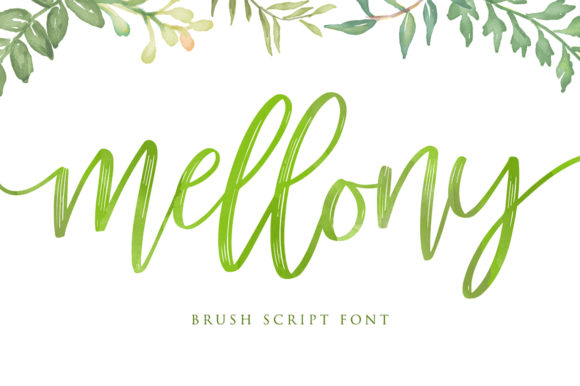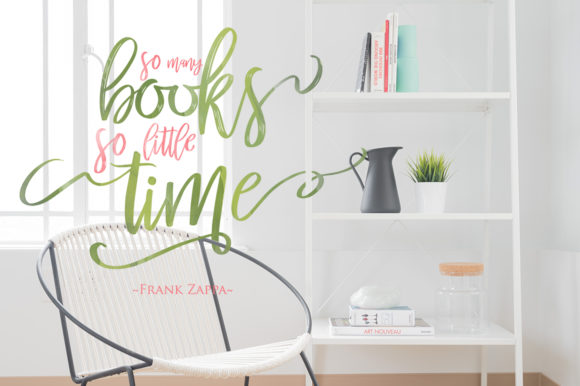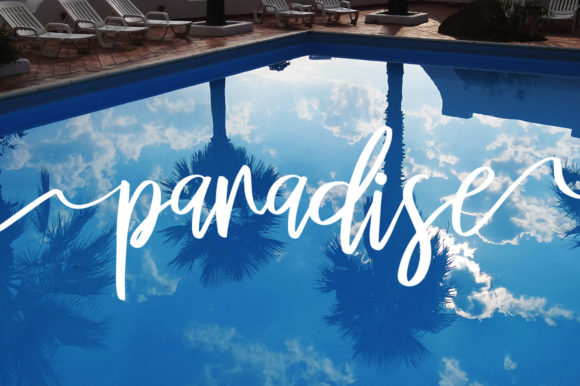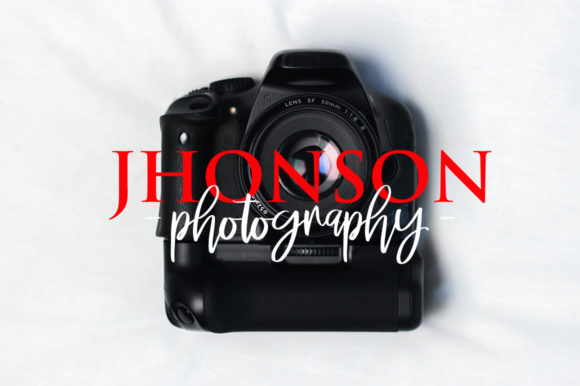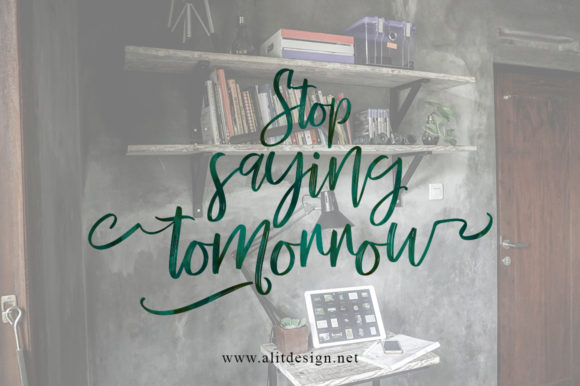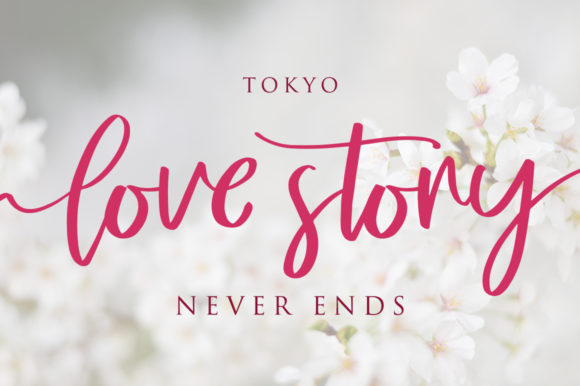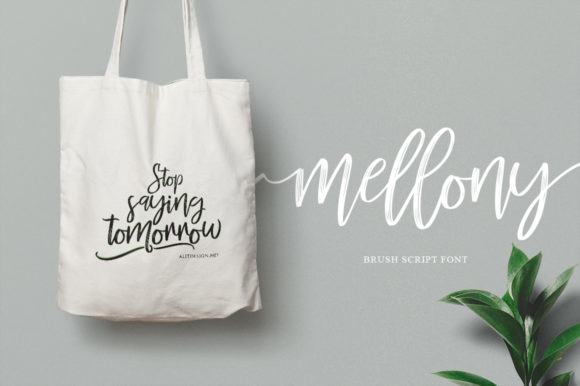
Mellony Font
About Mellony Font
Mellony is a cool and light handwritten font with a lovely feel. It will add a charming spark to any crafting project!